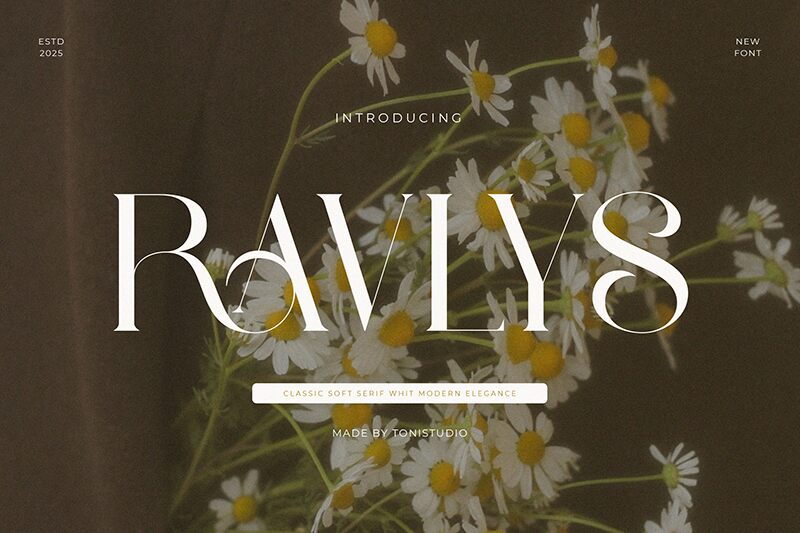
Ravlys
Ravlys font by ToniStudio is a free serif font with an air of elegance, refinement, and sophistication. The stylish typeface blends classic influences with contemporary touches in a remarkable way. The result is a beautiful homage to well-directed modern simplicity, pure perfection within the smallest of details that will leave no one indifferent.
The uses for Ravlys are varied and numerous which include applications such as marketing, posters, titles, headers; typography work on book covers; branding designs; magazine creation tasks that all require elegant outcomes. More possible use cases encompass packaging design, stationery work; cards or invitations; signage and more.